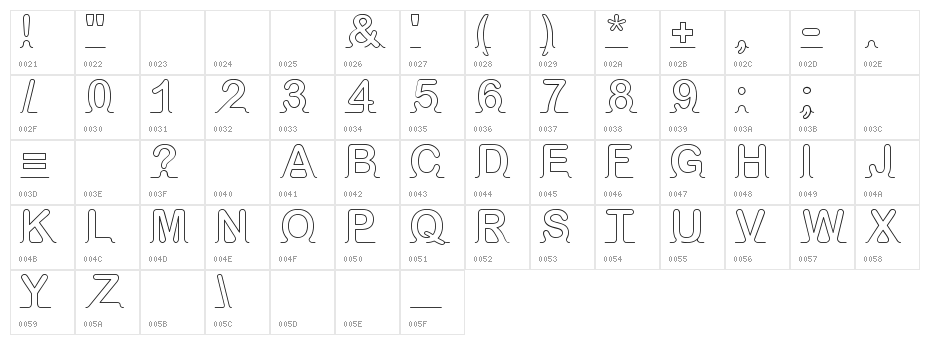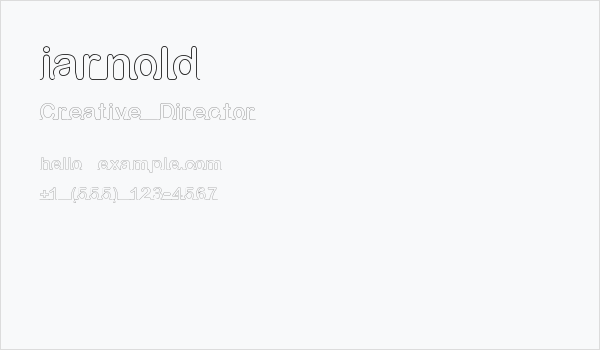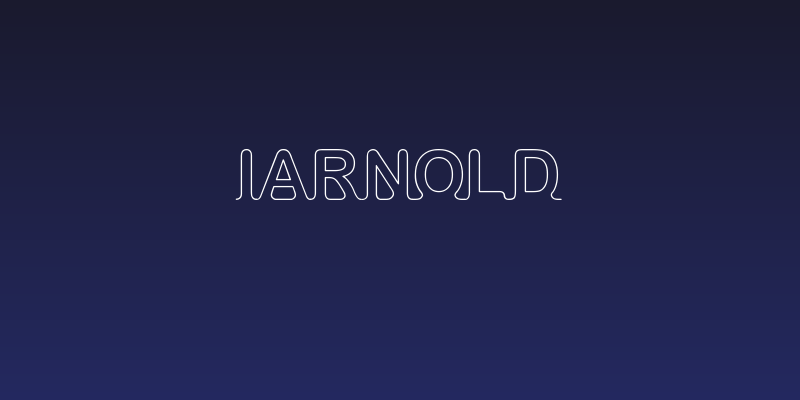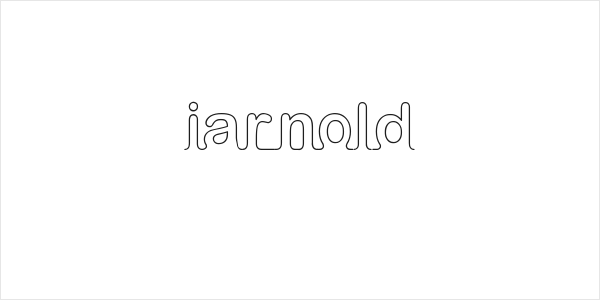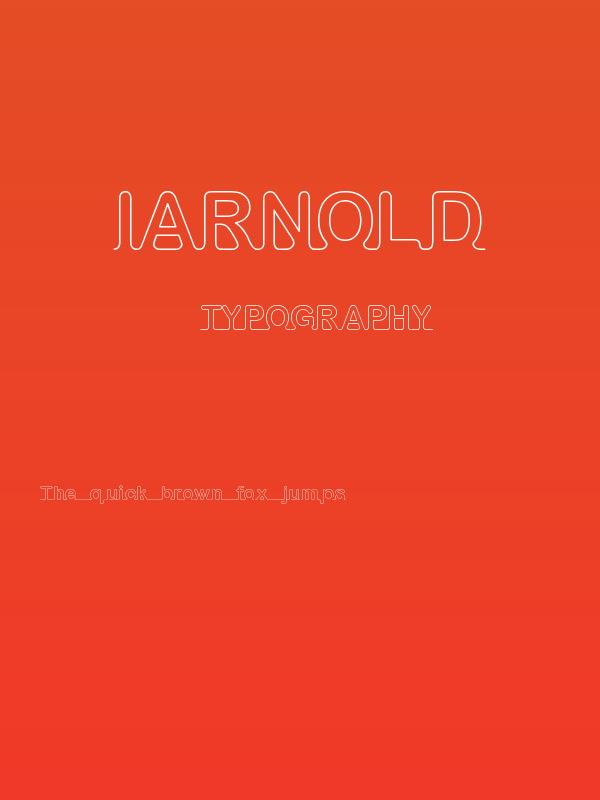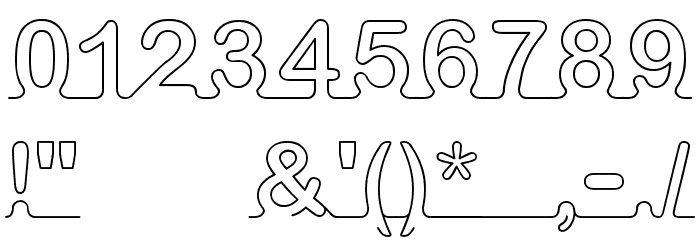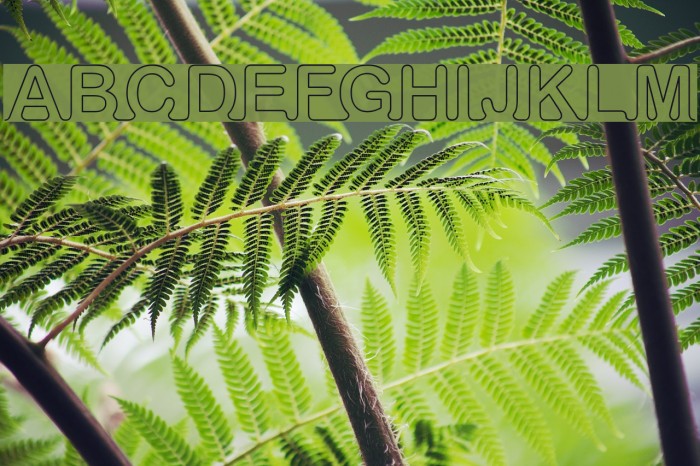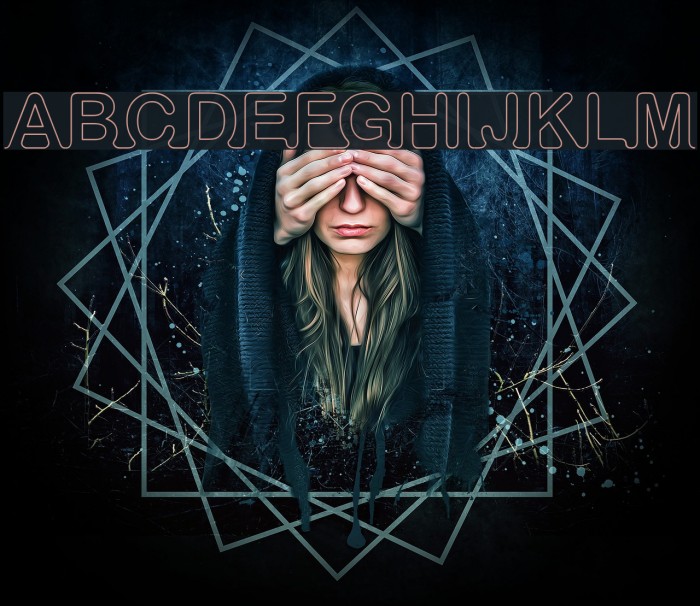
iarnold Font
iarnold Description
This font features a unique outline style with a modern twist, characterized by its hollow, tubular appearance. The uppercase and lowercase letters maintain a consistent width, creating a harmonious flow across the text. The numerals and special characters follow the same design principles, ensuring uniformity. The font's playful curves and rounded edges give it a friendly and approachable feel, making it suitable for creative and informal applications. Its distinct style makes it stand out, while the clear and legible design ensures readability.
| Proposed Projects | Ideal for creative projects such as posters, logos, and branding materials where a unique and friendly appearance is desired. |